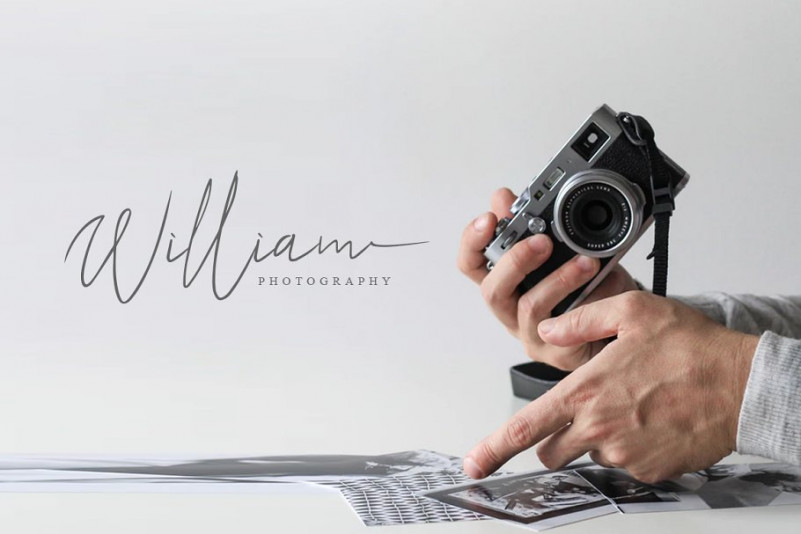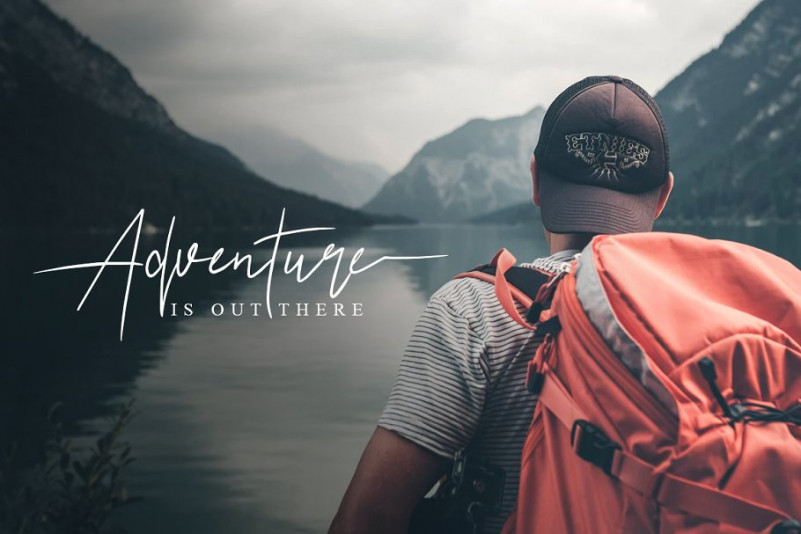
Ariel Signature Font
Ariel Signature Demo Font
A modern signature font. This handwritten script has been attentively written, with gentle curves to produce a font thats completely distinctive and original. Introducing Ariel Font, it is was designed and shares by khurasan. ArielSignature Font – a font that is very fresh and unique style handmade. Ariel Signature Typeface is perfectly suited to logo, stationery, poster, apparel, branding, wedding invitation, card, tagline, layout design, and much more !!